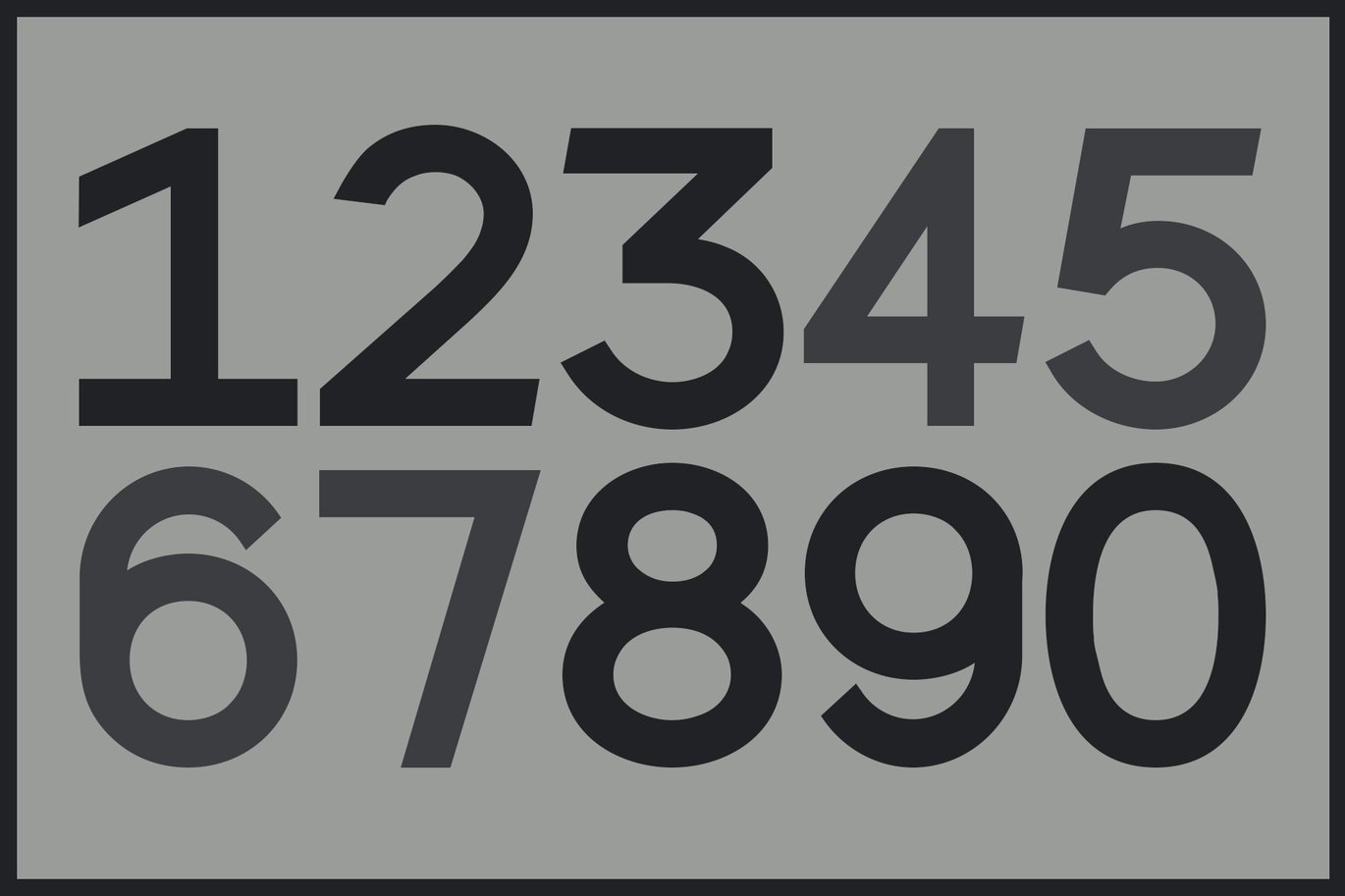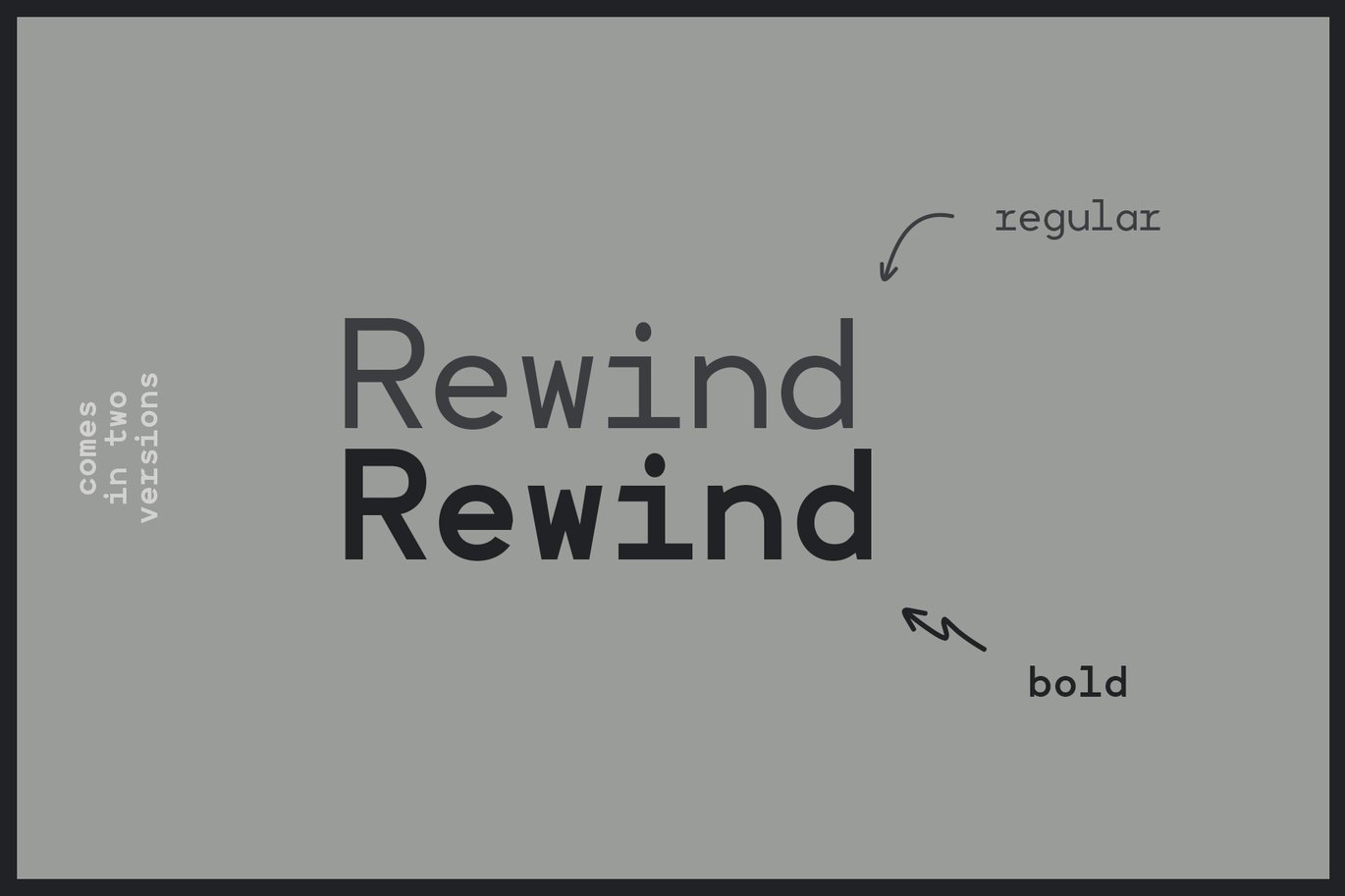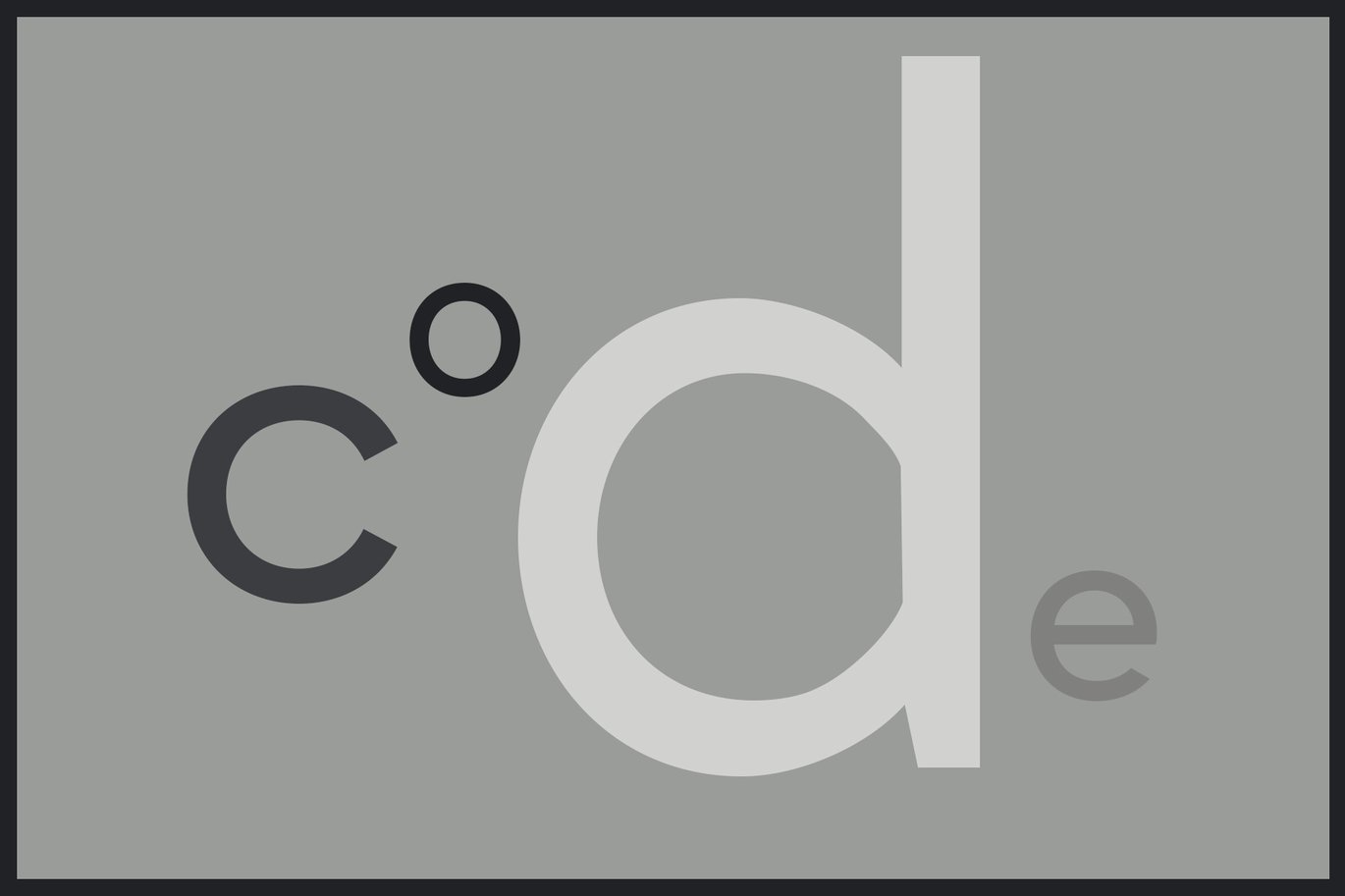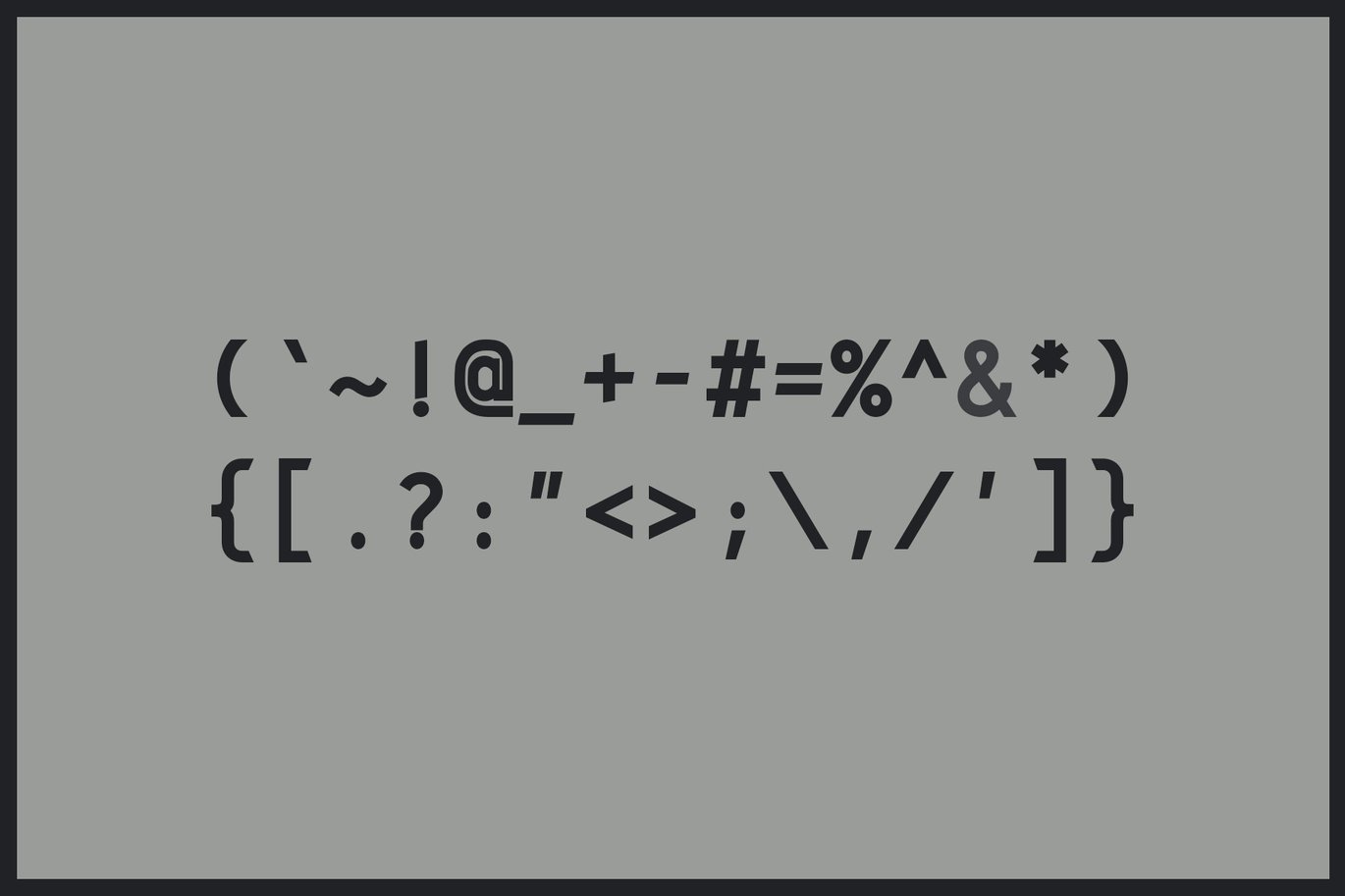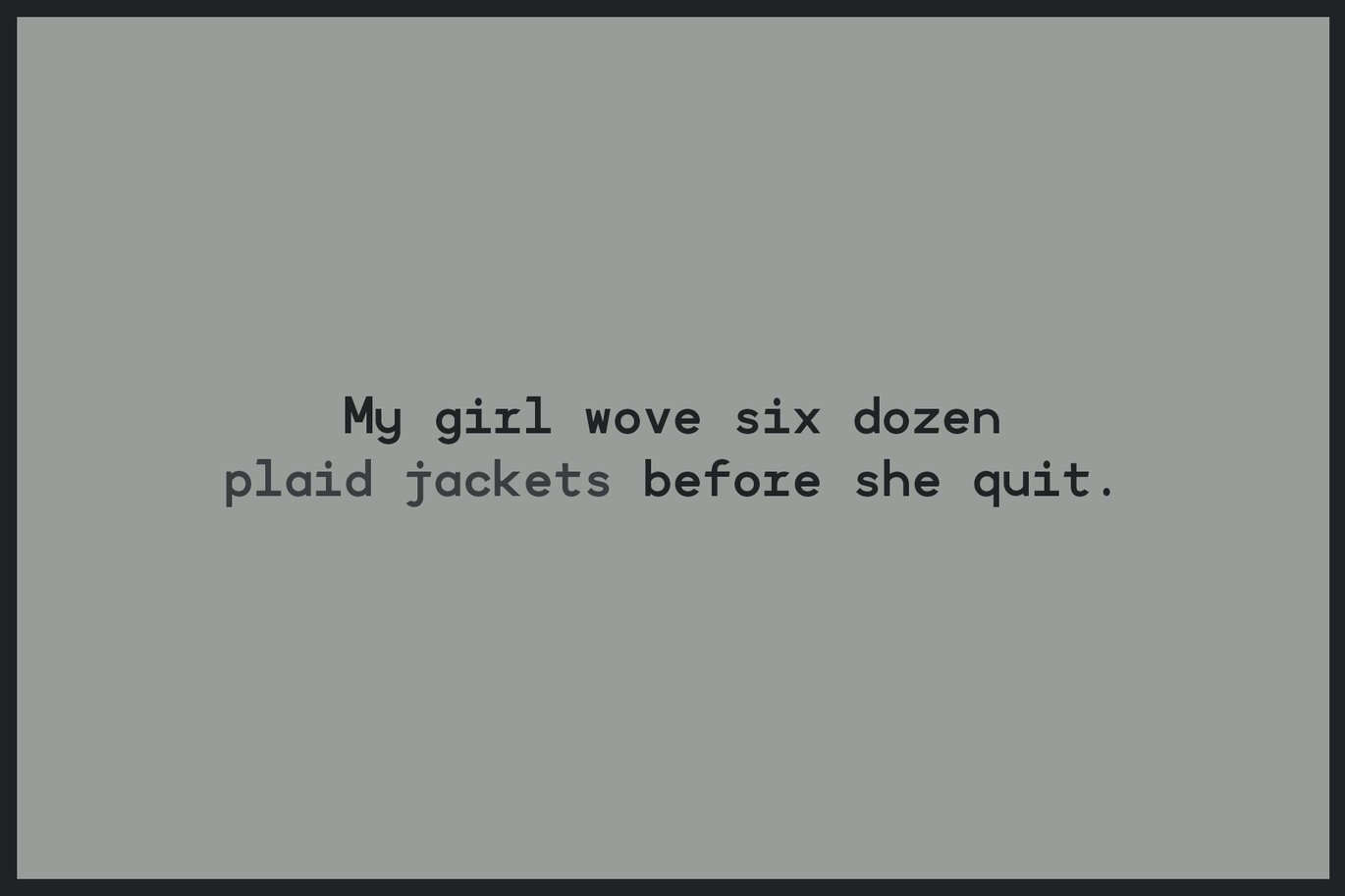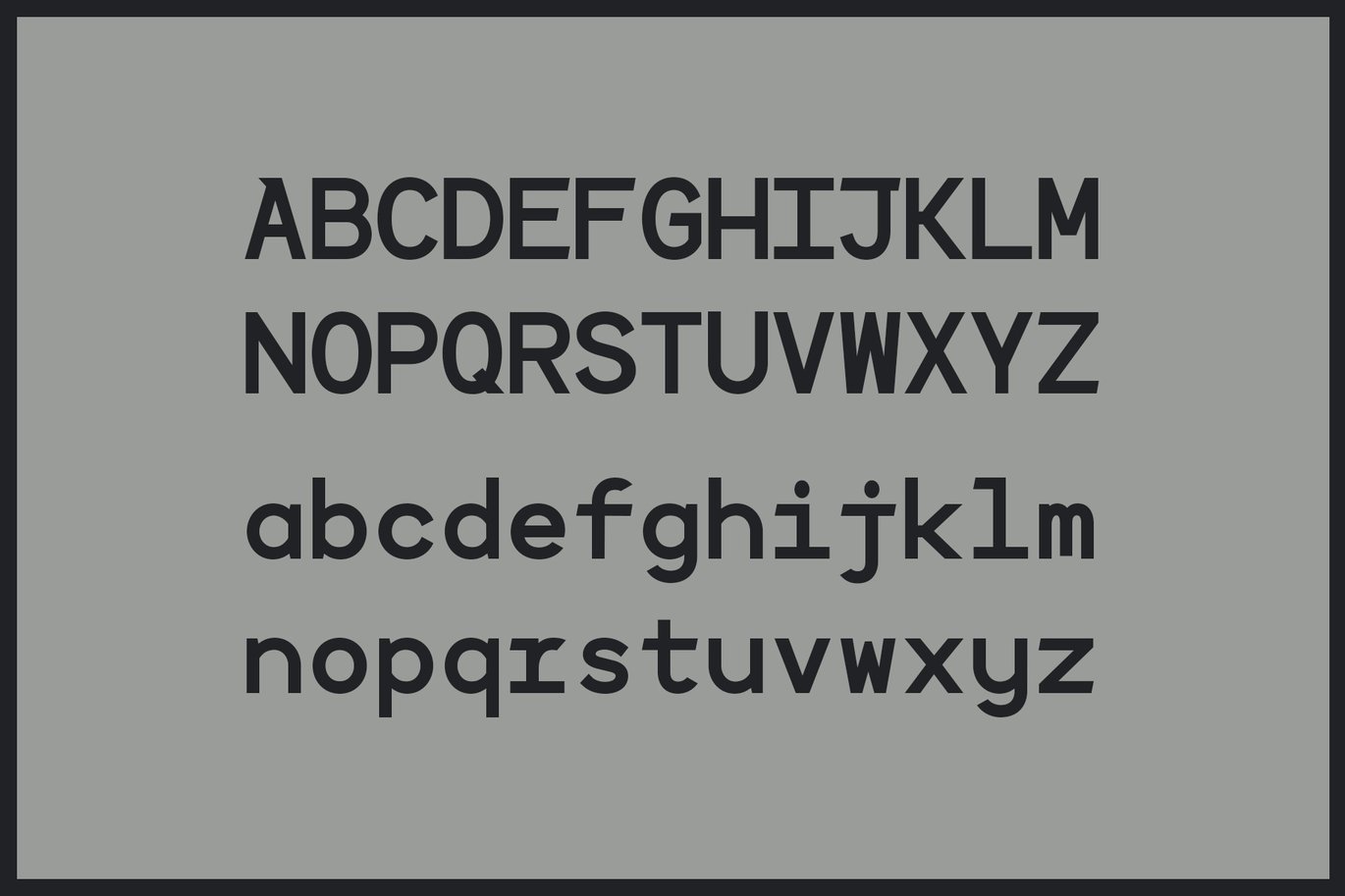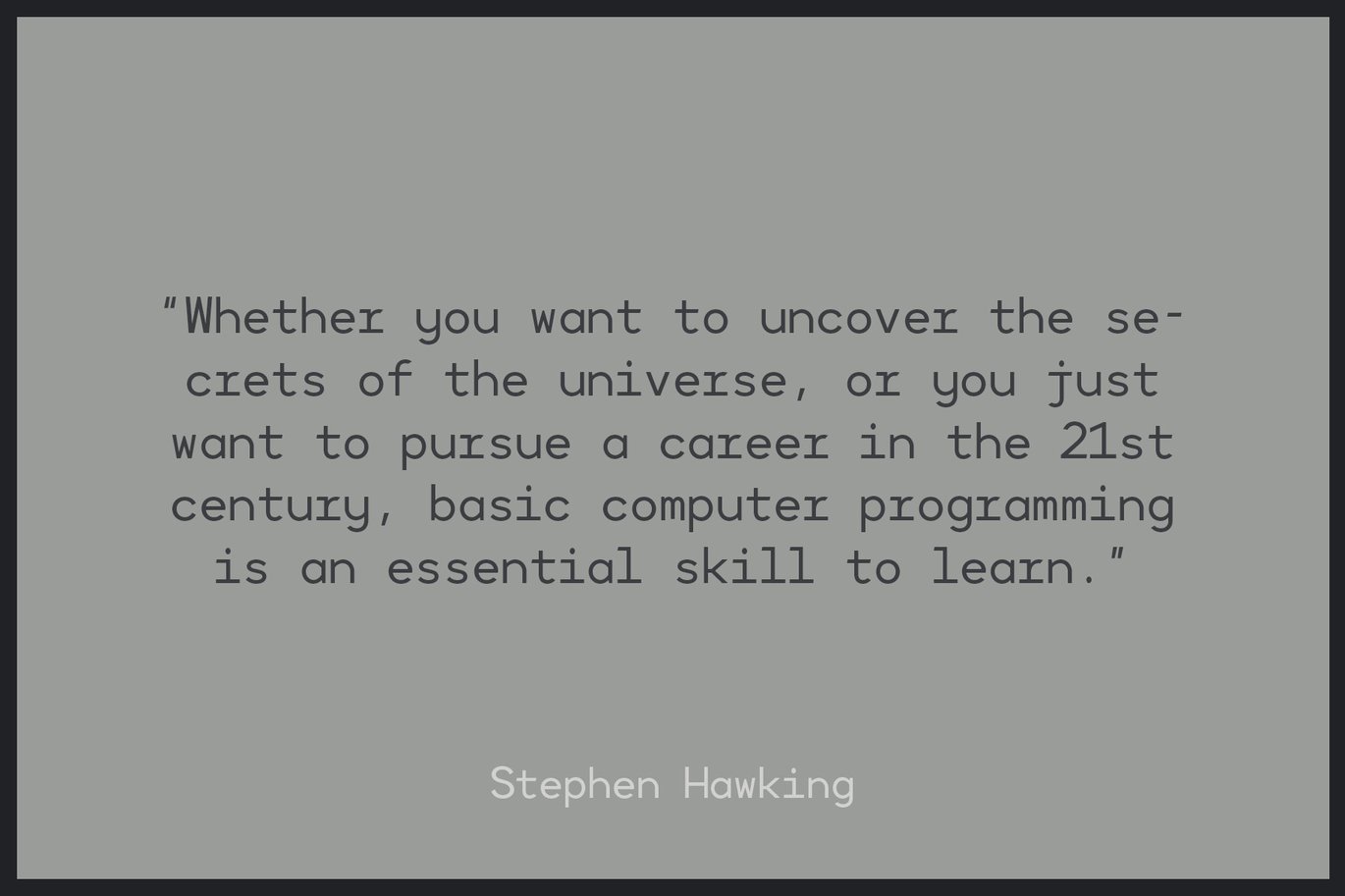
Rewind – Monospace Typeface
Rewind is a technical monospaced sans-serif typeface. The font was inspired by 1980s portable cassette players. Rewind has an industrial vibe, which makes it great for branding, technology projects, social media, stationary, packaging, airline industry, subtitles for movies, ads, and more. It comes in 2 styles, regular and bold.